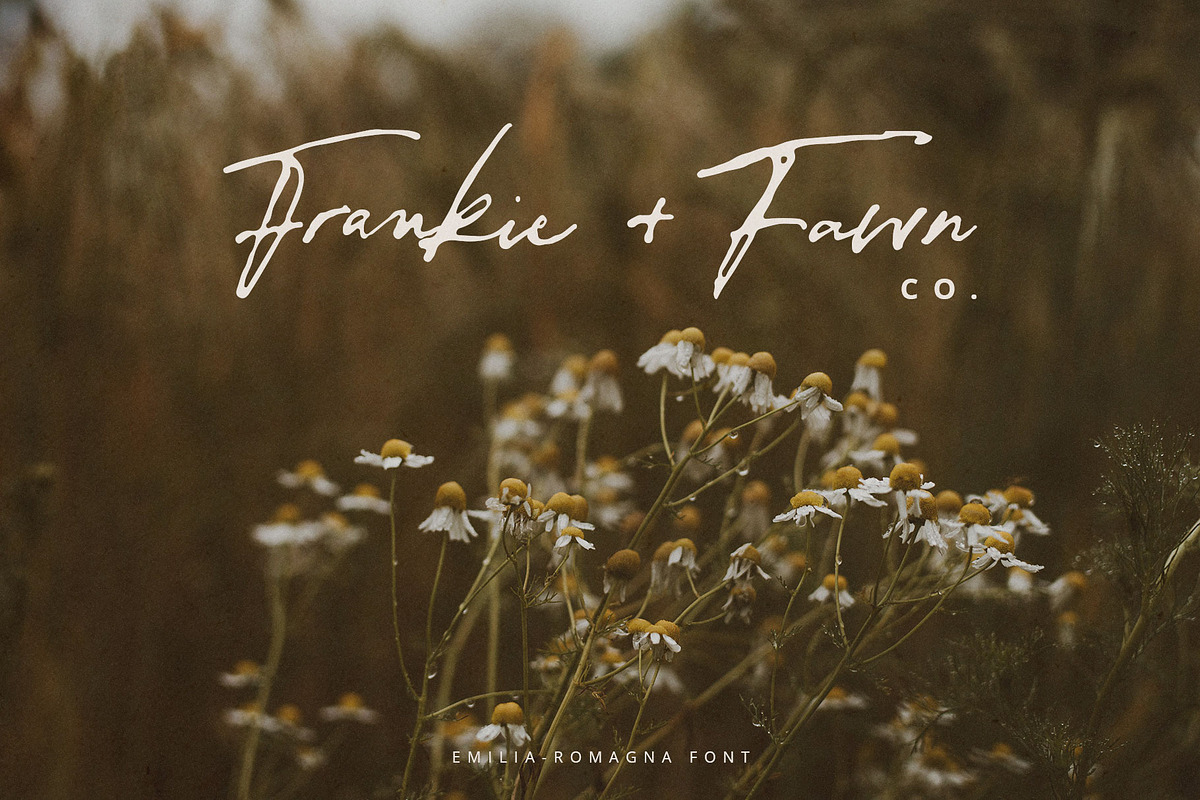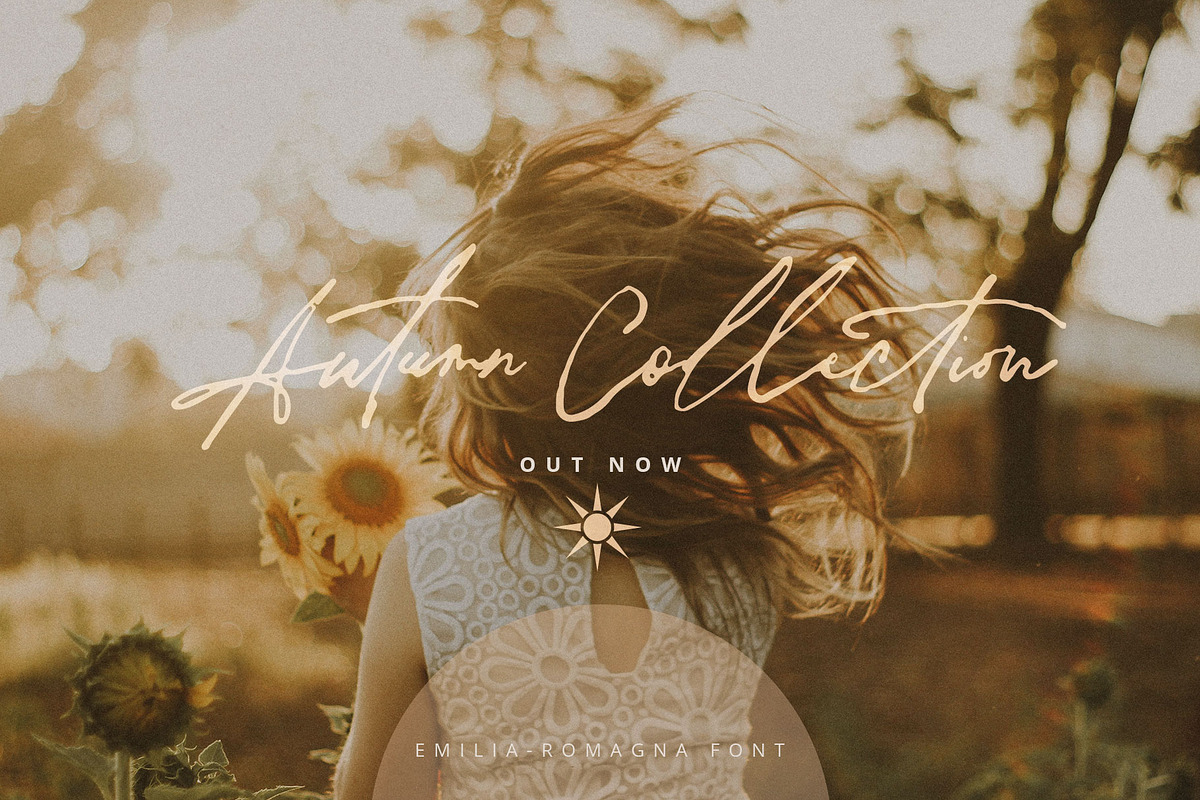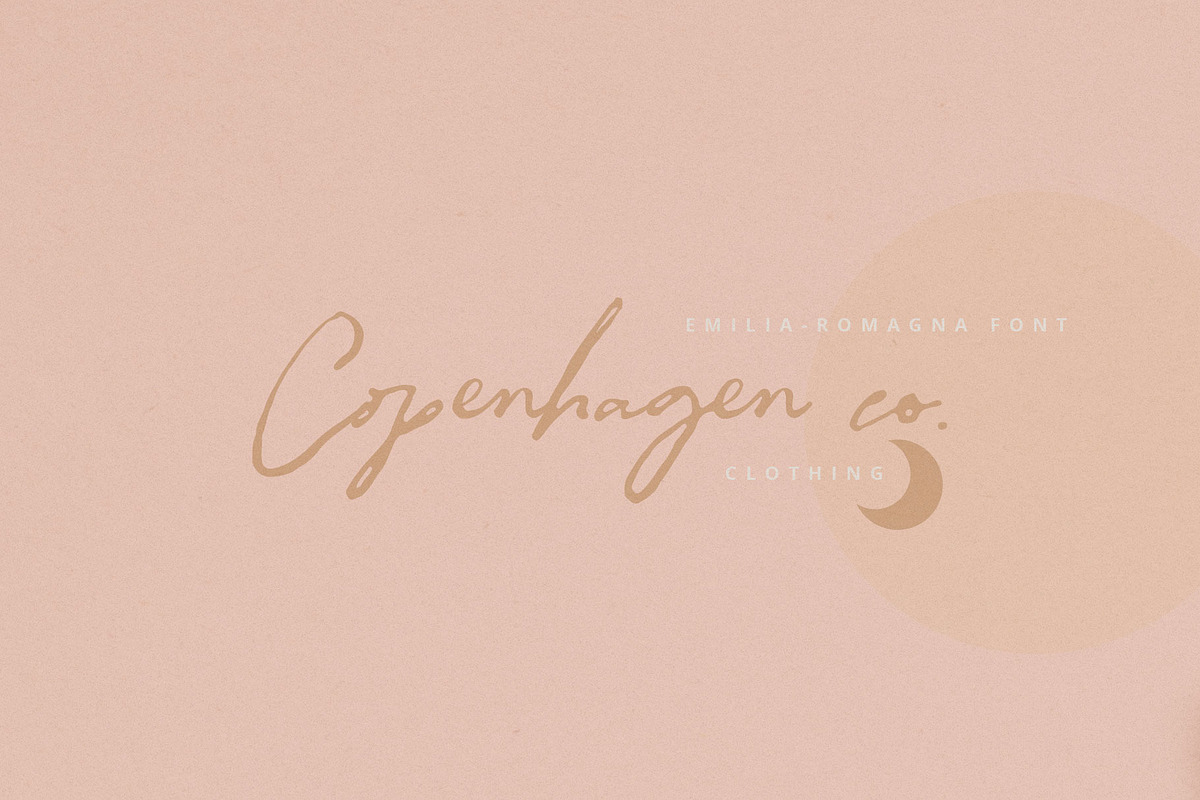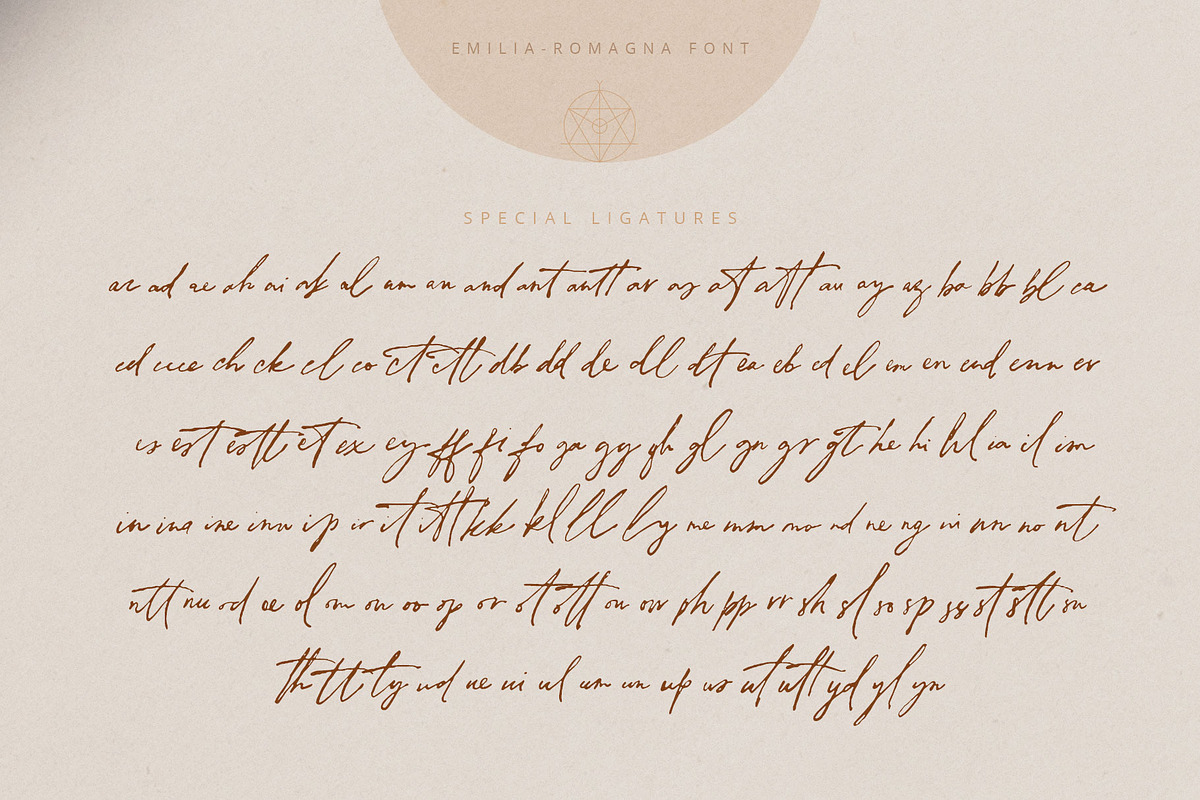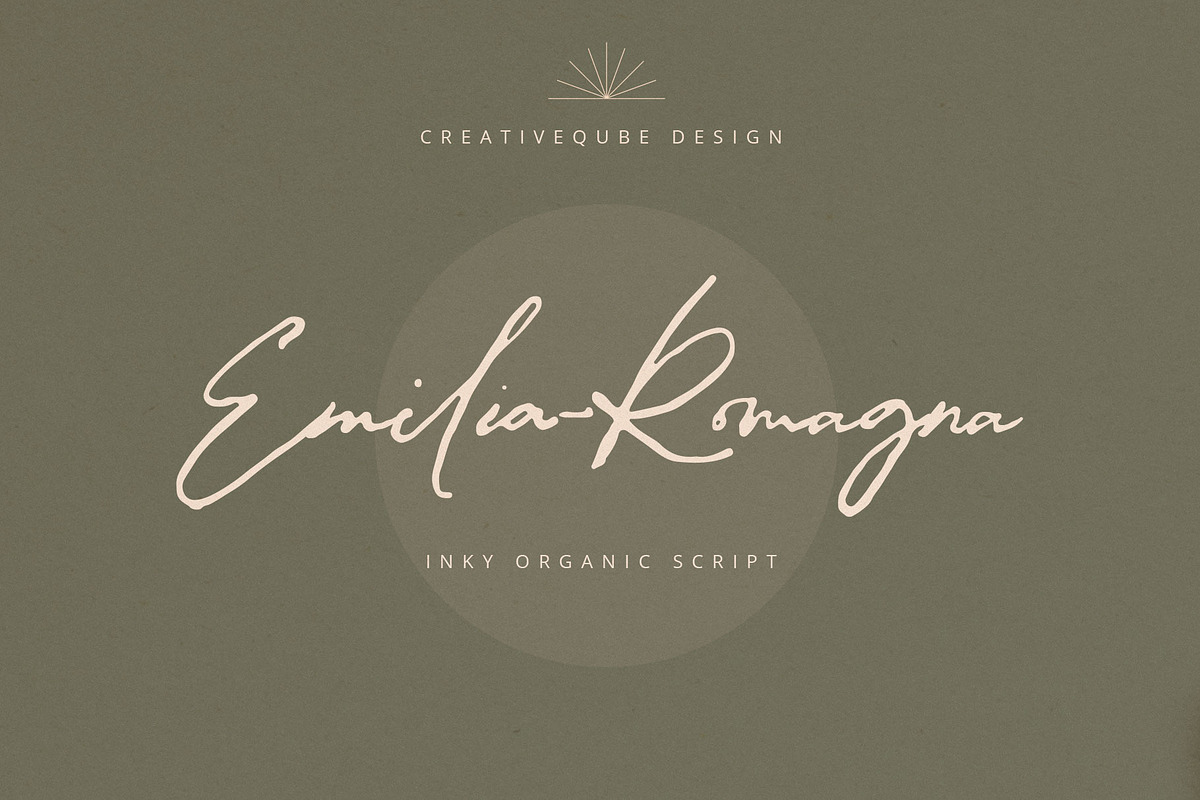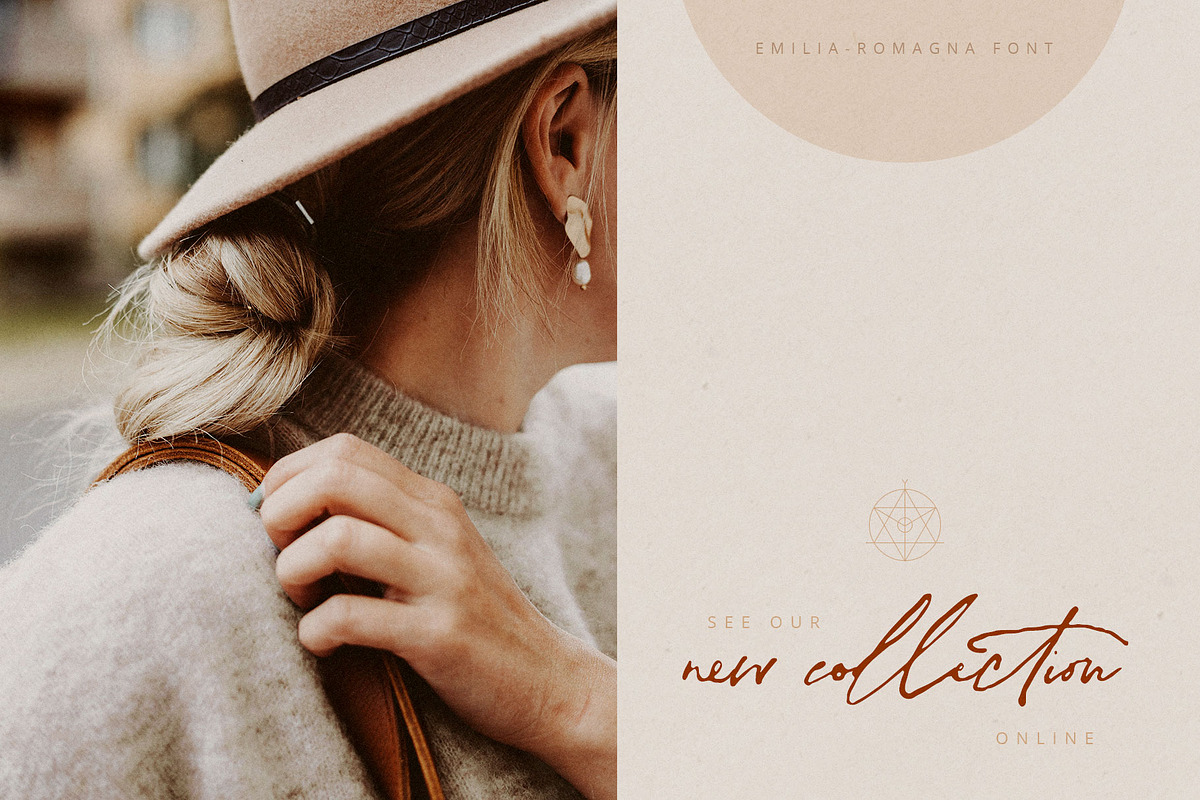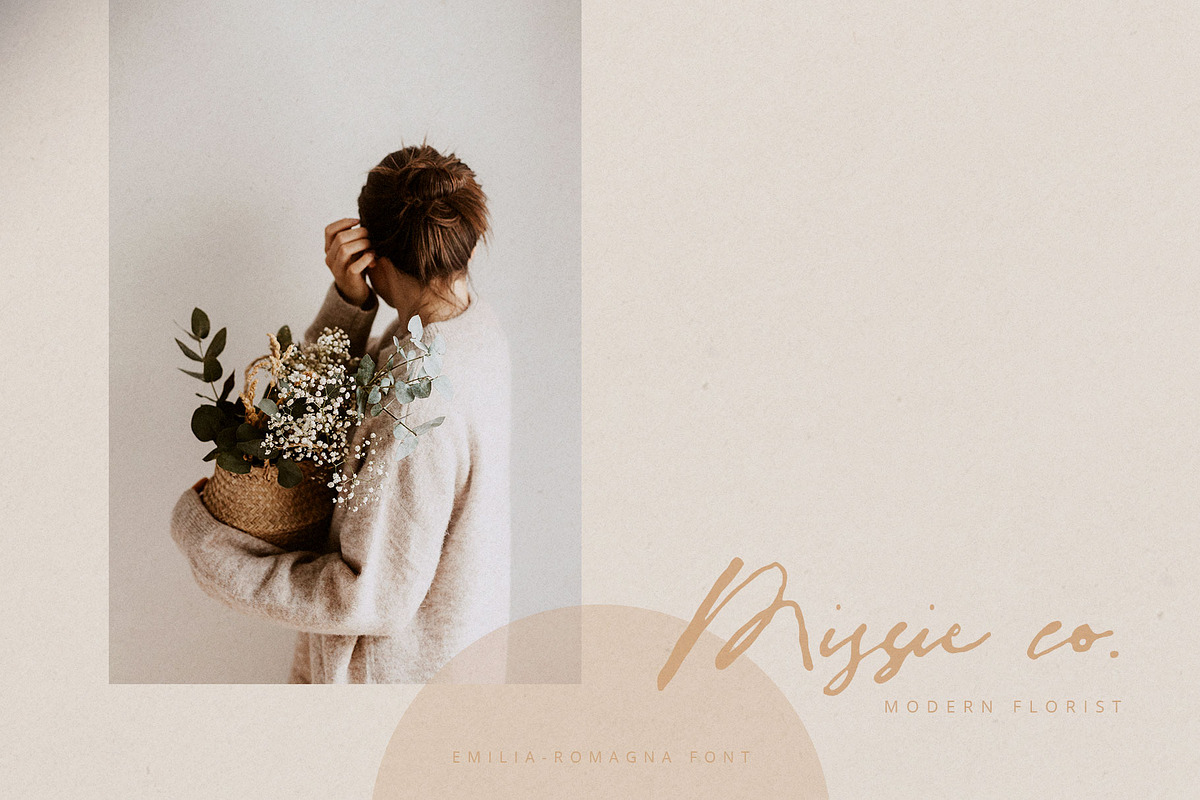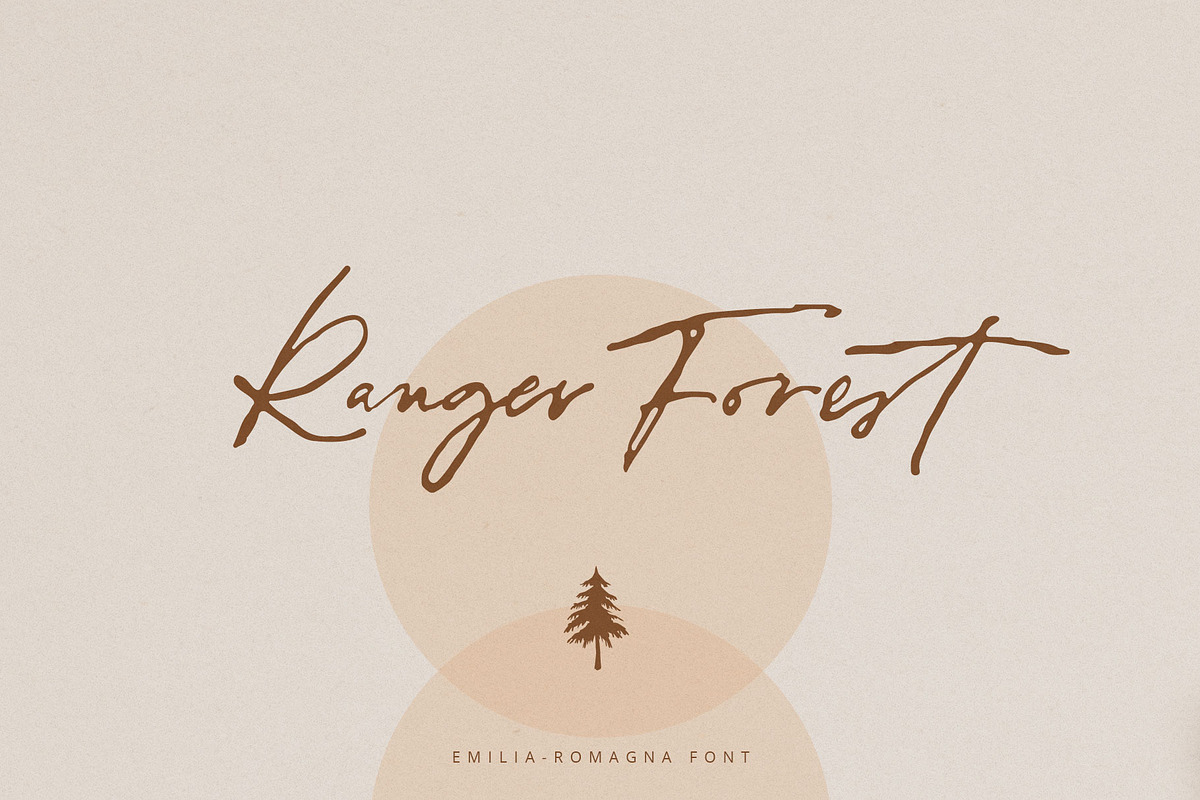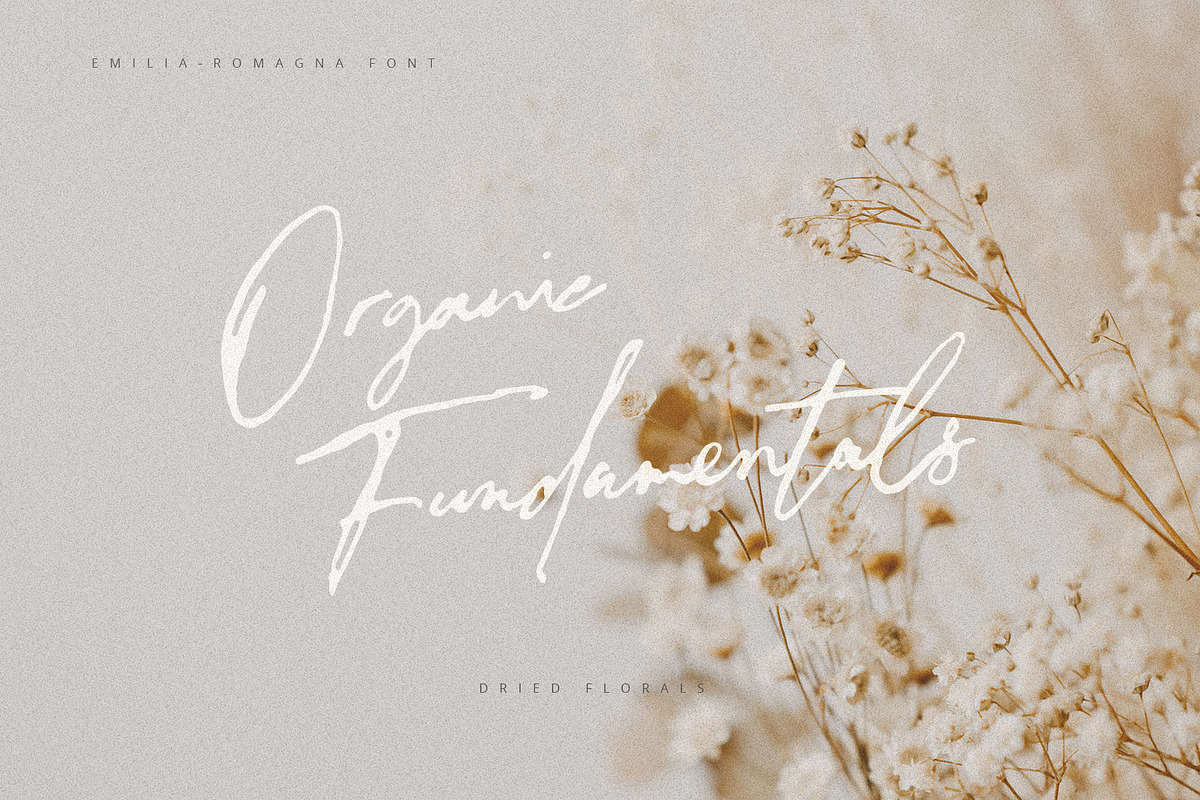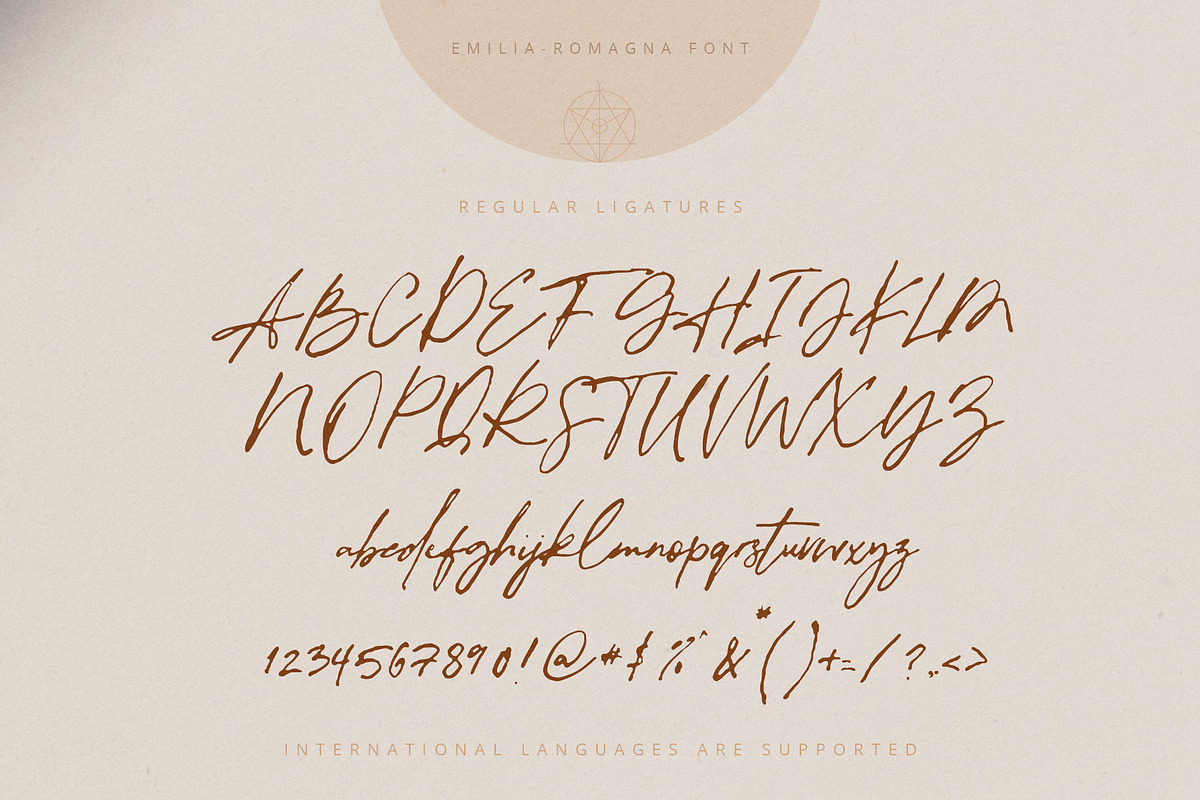
Emilia-Romagna Script Font
Emilia-Romagna Script is an inky messy handwritten script font loaded with extra ligatures that makes for stunning logos, quotes, wedding invites, blog posts, Instagram, and more!
Emilia-Romagna includes a full set of lowercase and uppercase ligatures, plus a bunch of special ligatures. International language is supported.